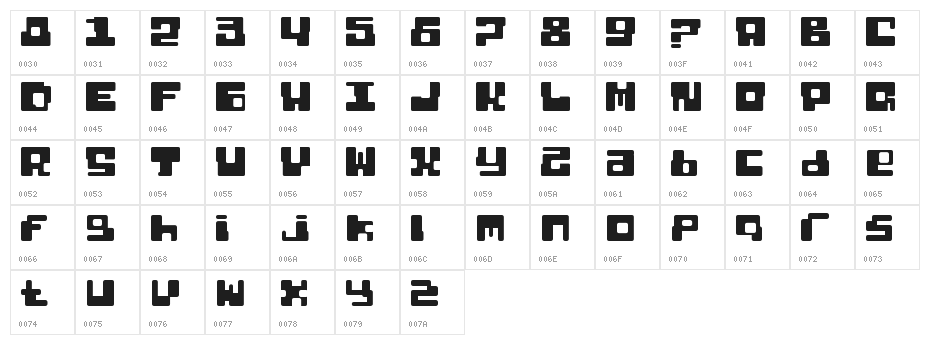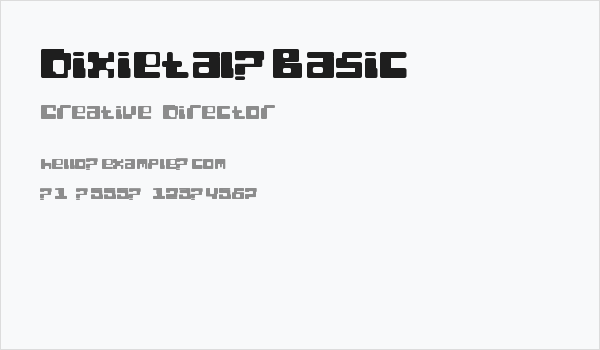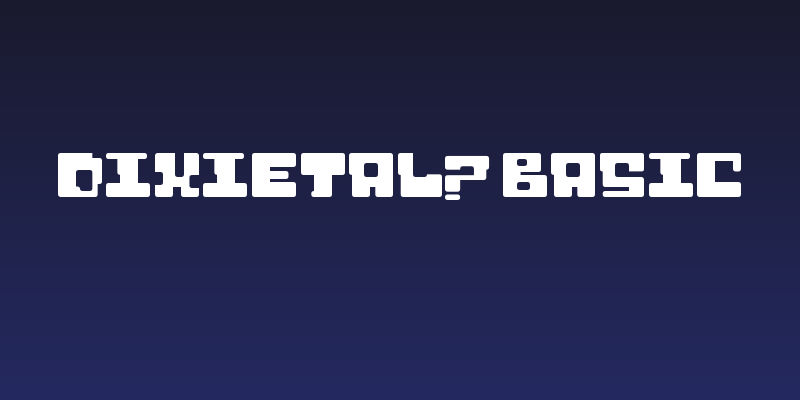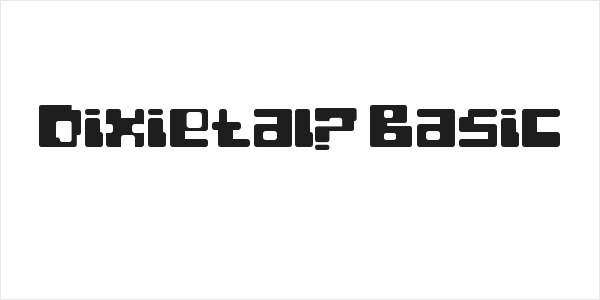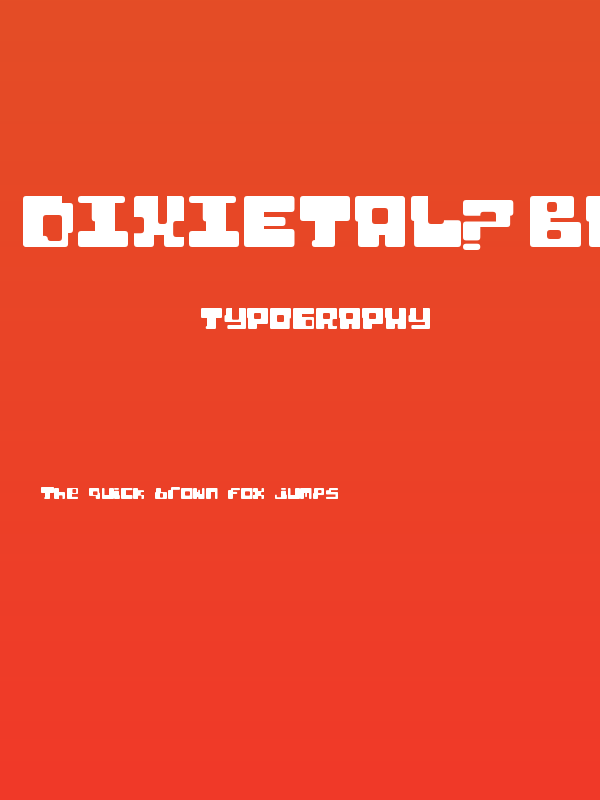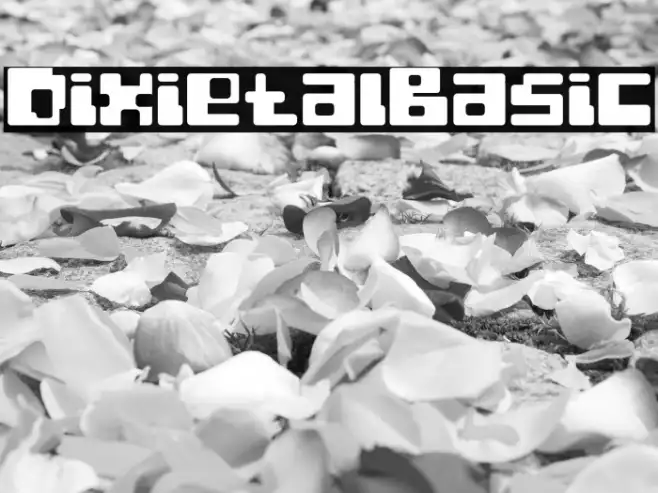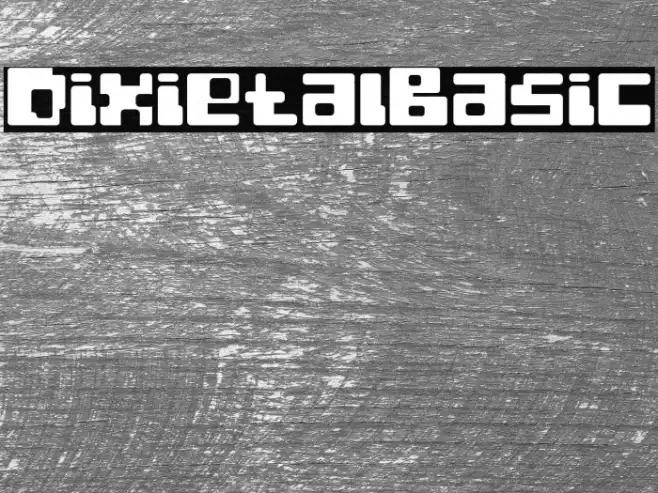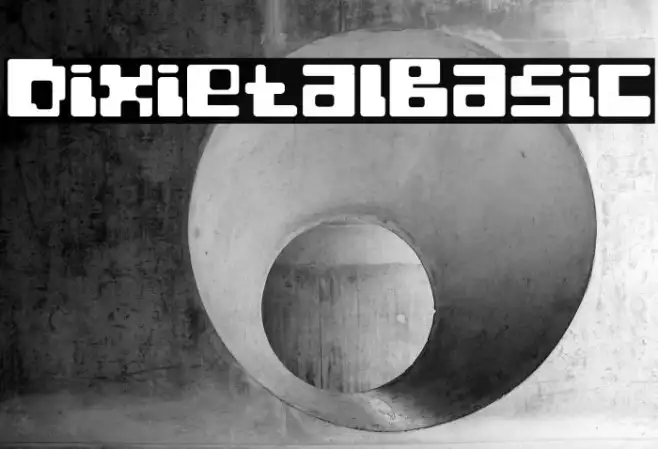
Dixietal-Basic Font
Dixietal-Basic Description
This font features a bold, geometric design with a distinctly modern and digital aesthetic. The characters are constructed with solid, block-like shapes that give a sense of strength and stability. The uppercase and lowercase letters maintain a consistent style, with rounded corners and uniform thickness, creating a cohesive look across the alphabet. The numerals and special characters follow the same design principles, ensuring a harmonious appearance throughout. The font's unique style makes it stand out, ideal for projects that require a futuristic or tech-inspired look.
| Proposed Projects | Ideal for tech branding, digital media, video game design, and futuristic posters. |